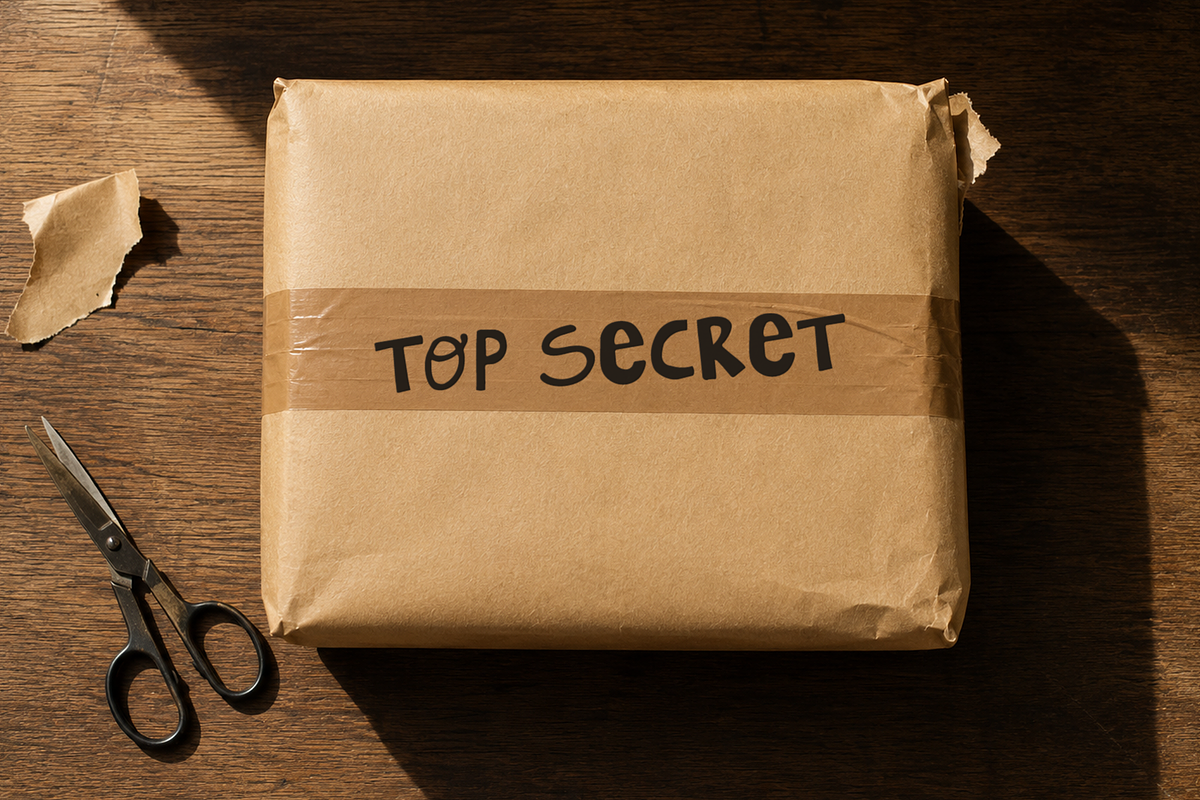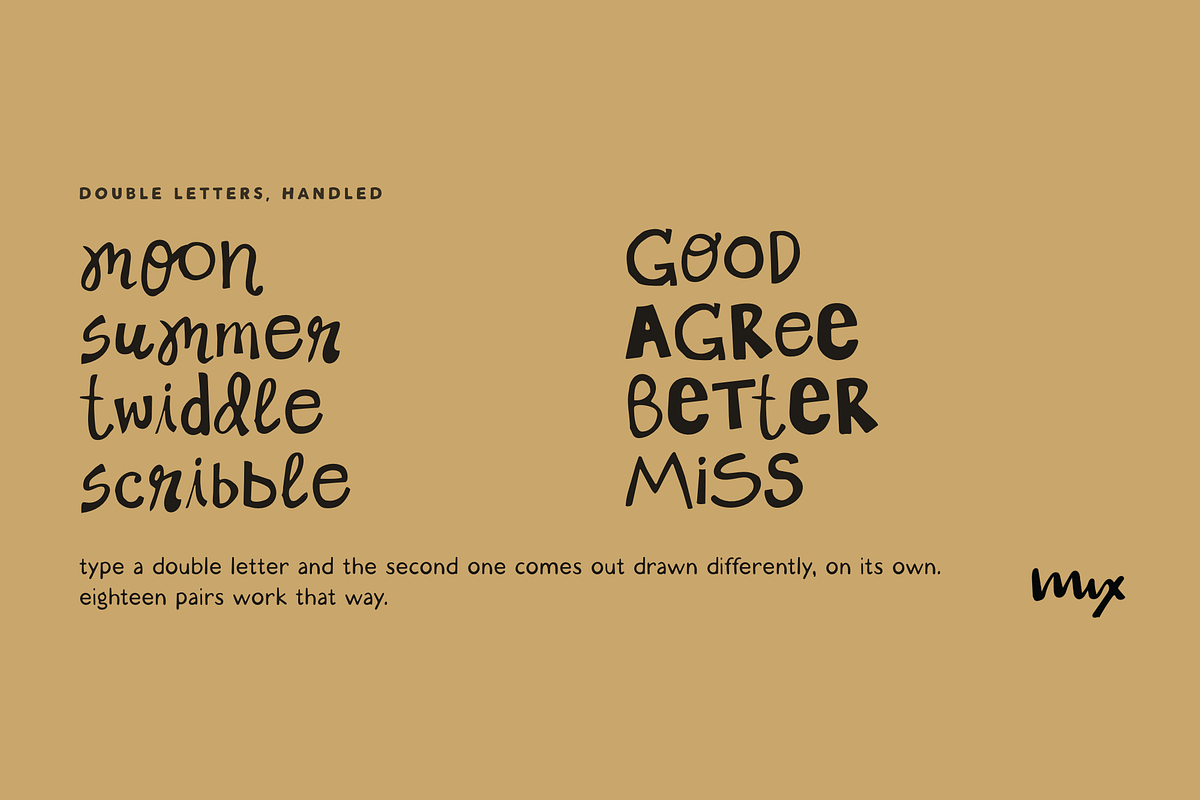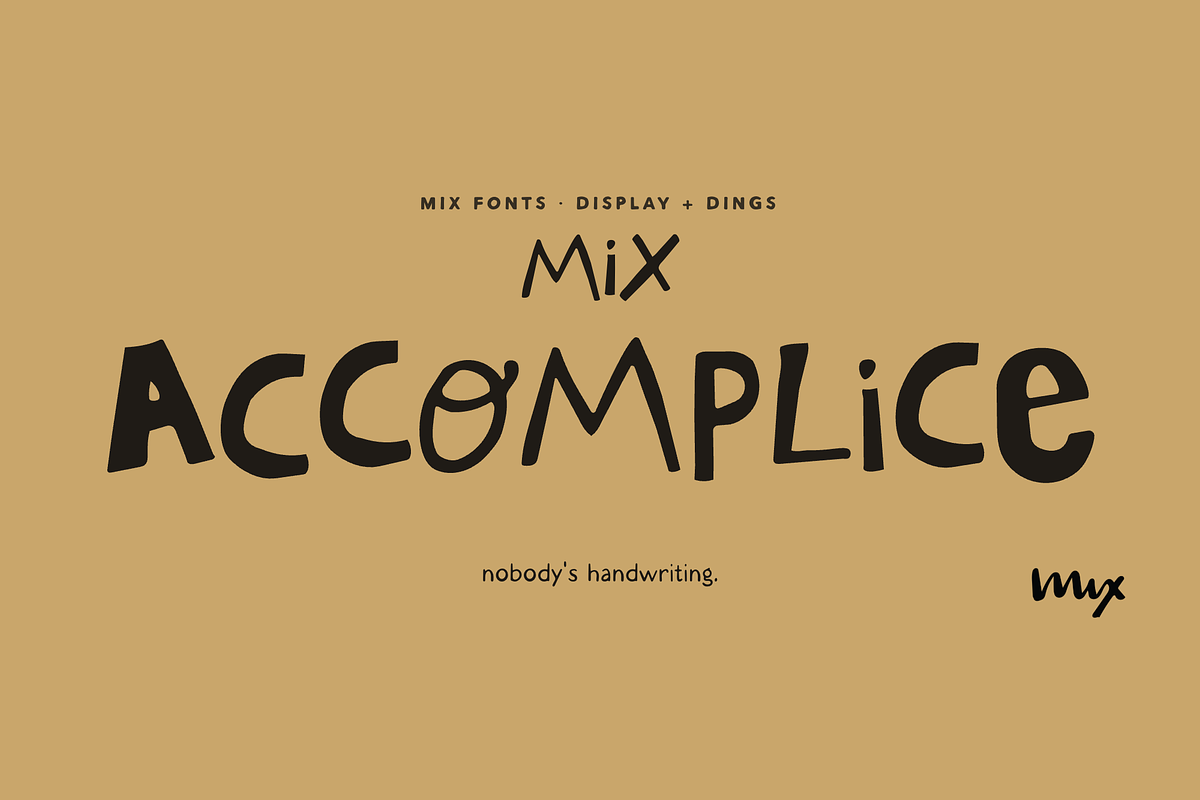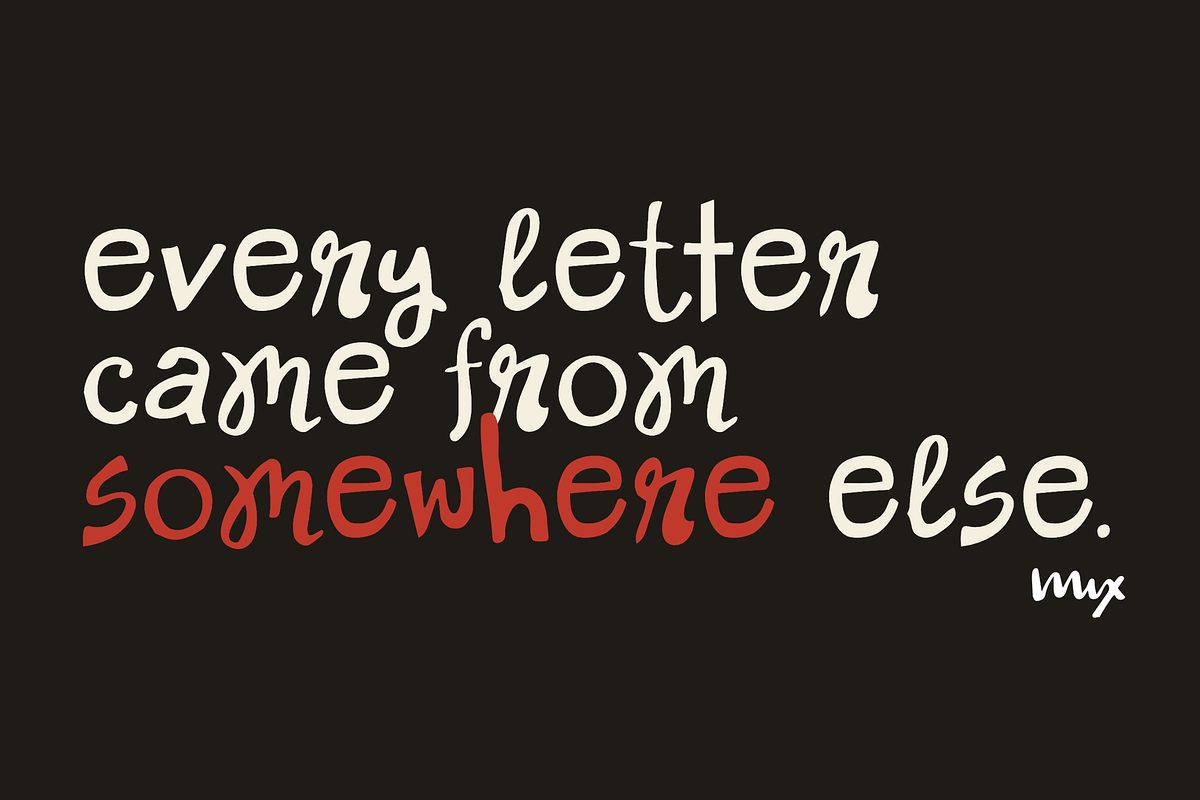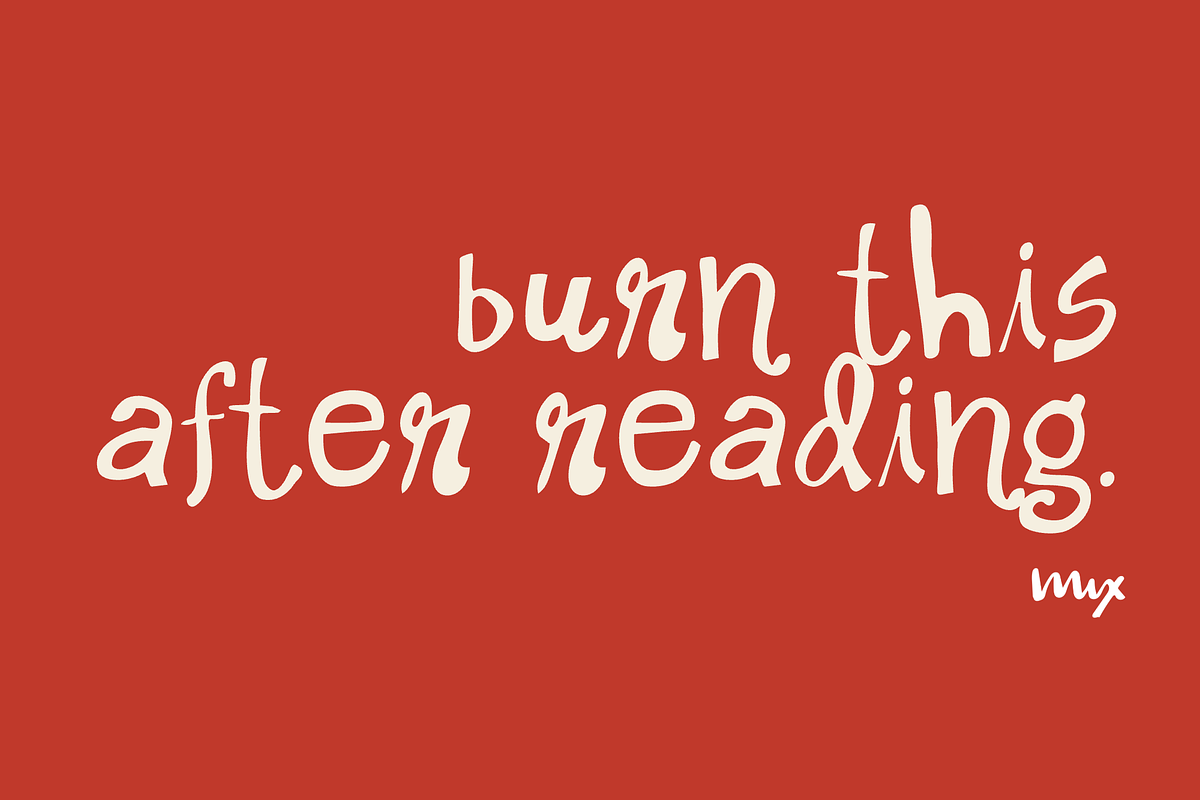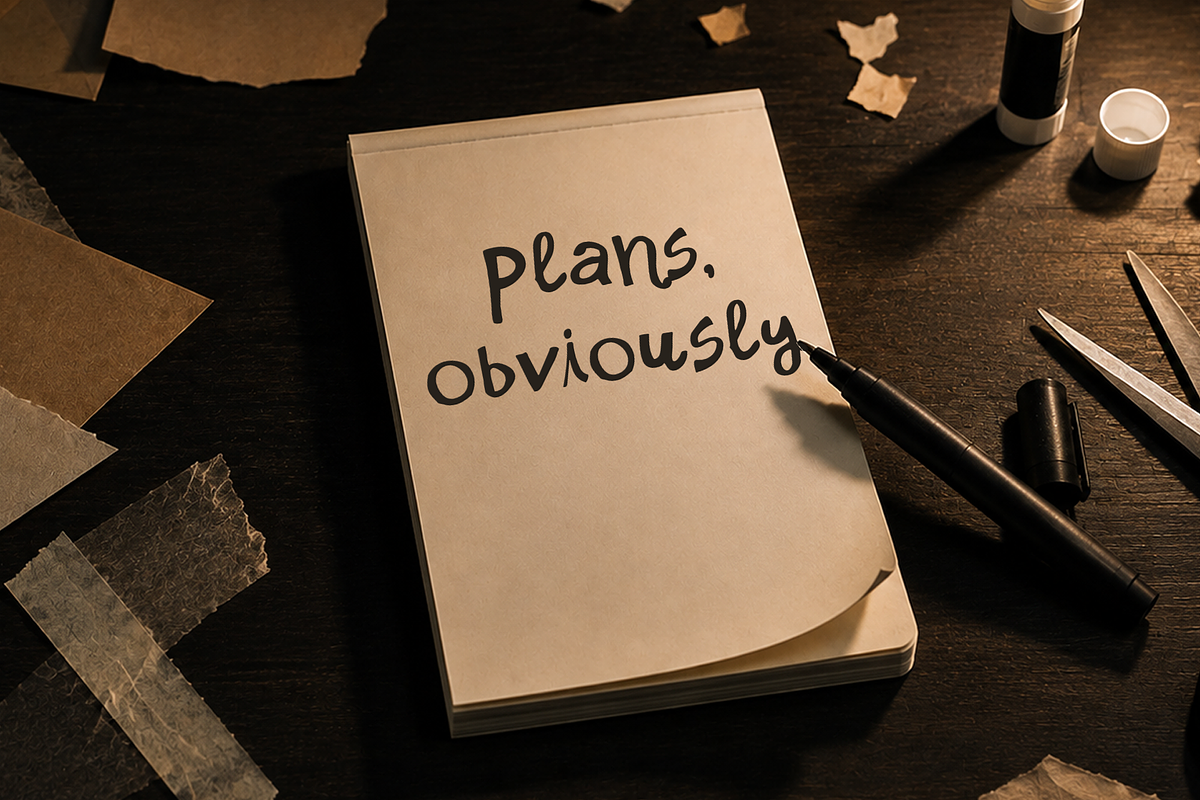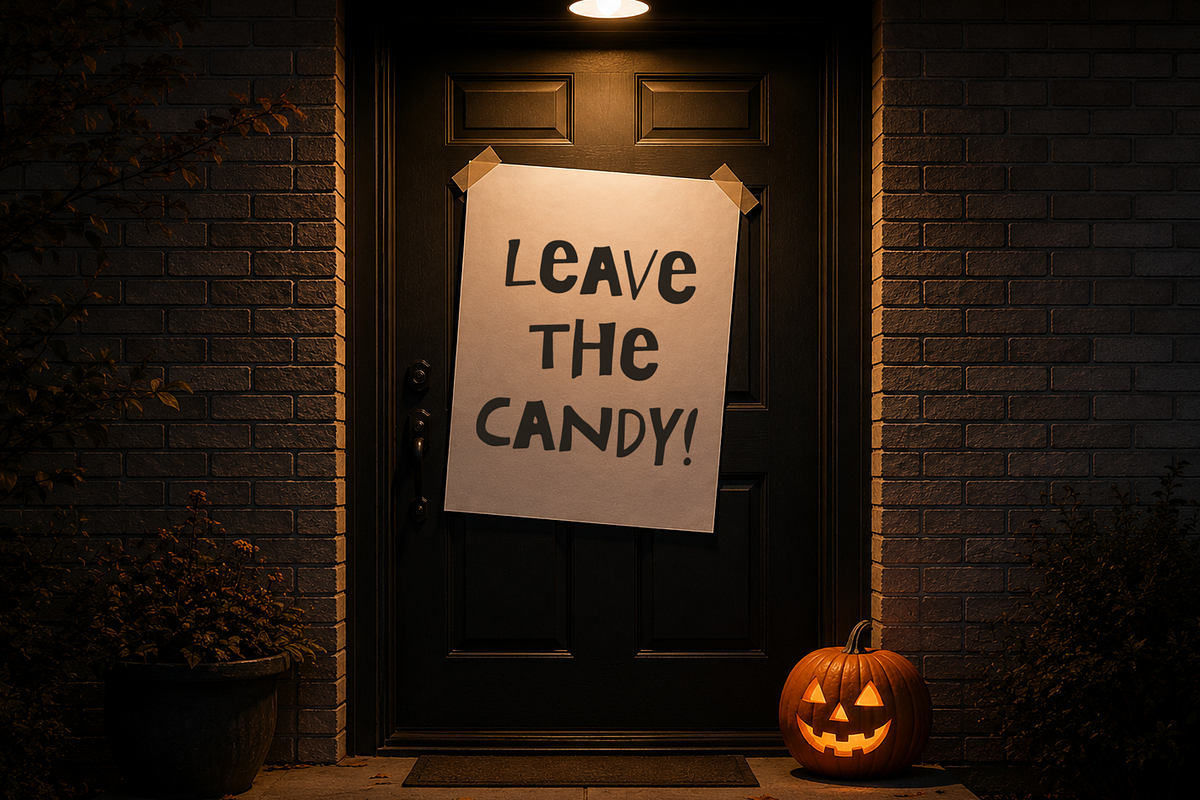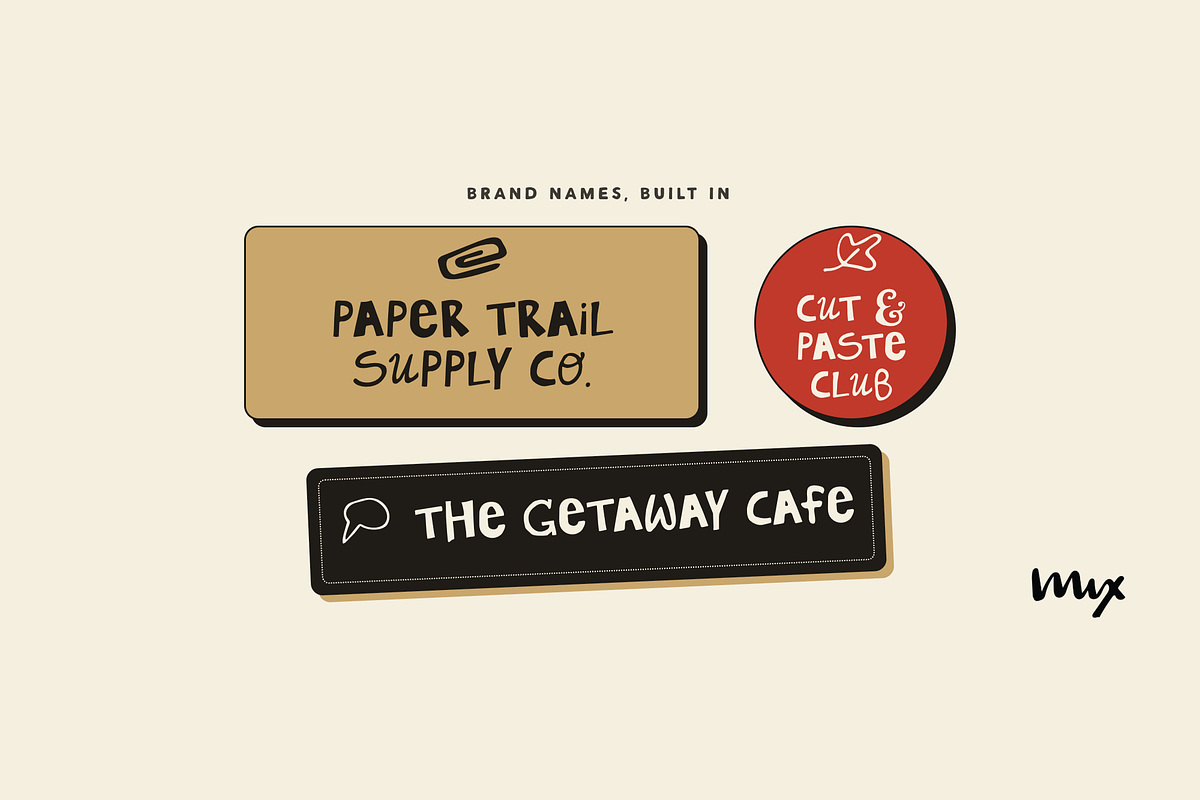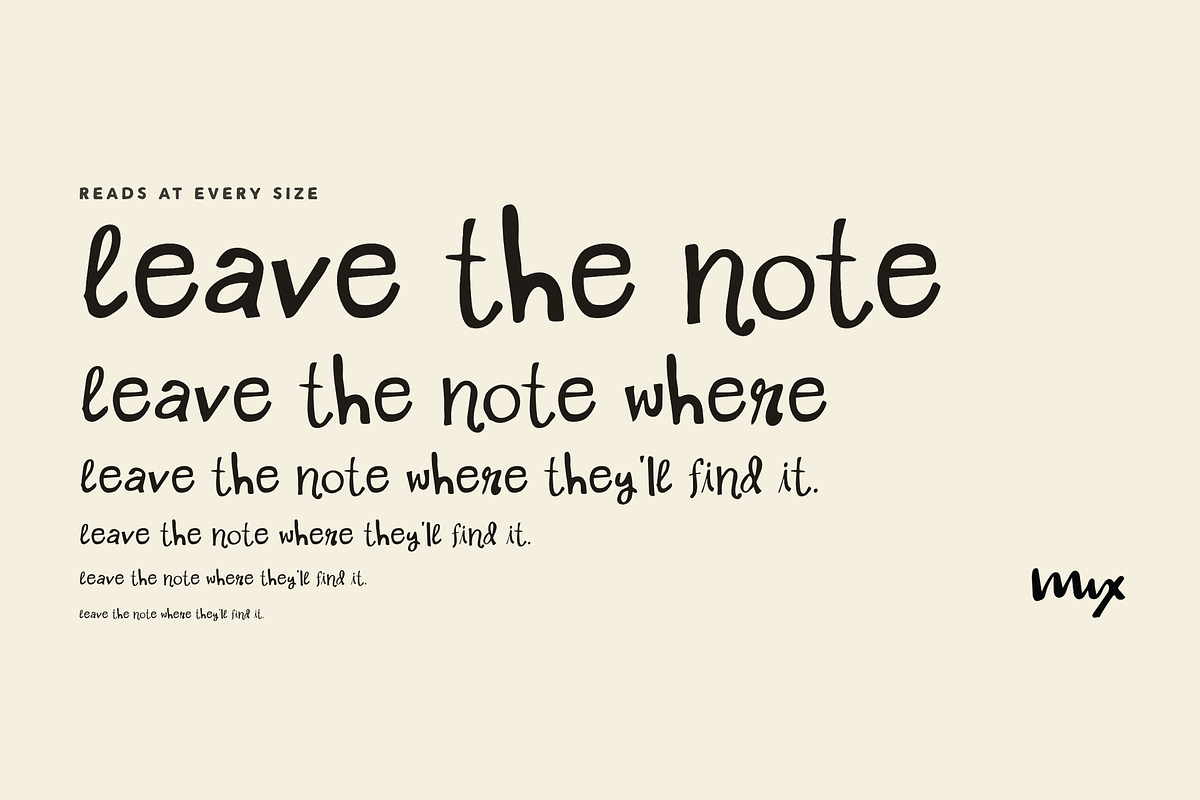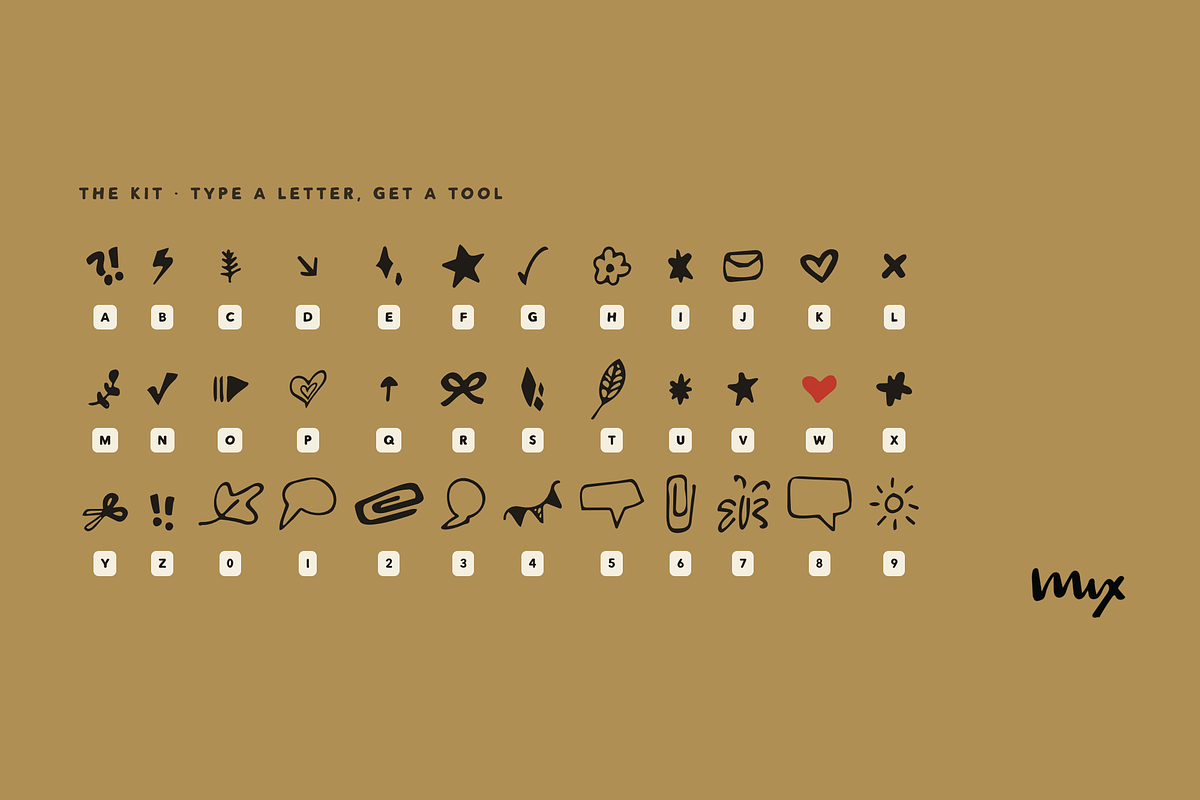
Mix Accomplice - A Ransom Note Duo
Nobody's handwriting. Every letter in Mix Accomplice looks cut from a different page by a different hand, so whatever you type reads like it was assembled, not written.
Type a word and the letters argue with each other in the best way. Caps, lowercase and numbers all come from different hands, and when you type a double letter the second one comes out drawn differently on its own, so the collage never repeats itself.
Mix Accomplice Dings is the kit that comes with it: tape, scissors, paperclips, speech bubbles, stars, hearts and the rest of the desk, one on every key.
Made for ransom notes with no crime attached: journals, scrapbooks, sticker sheets, Halloween projects, party signs and zines.